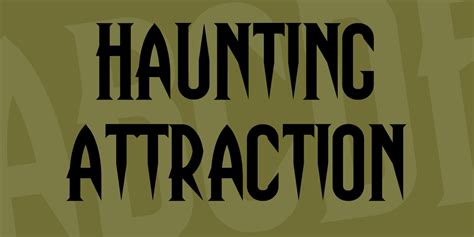
Haunting Attraction Font . The haunting attraction font has been. Web download haunting attraction font · free for commercial use · created 2003 for a logo concept for haunted attraction.
Web download haunting attraction font free! 176,405 downloads (39 yesterday) 3 comments 100%. Web haunting attraction is a gothic, modern font designed by sinister fonts.
Web free download of haunting attraction font. Haunting attraction by sinister fonts. Released in 2003 by sinister fonts and licensed for personal and. The font is free for both personel and commercial usages.
Haunting Attraction Font - Installable on pc, mac, linux, ios, and android platforms. Web haunting attraction is a gothic, modern font designed by sinister fonts. Haunting attraction by sinister fonts. The font is licensed as free. Web download and install the haunting attraction font by sinister fonts.
Haunting Attraction Font - Web download and install the haunting attraction font by sinister fonts. The font is free for both personel and commercial usages. Web discover the free haunting attraction font at free font download ! Web haunting attraction is a gothic, modern font designed by sinister fonts. The haunting attraction font has been.
Haunting Attraction Font - Web download haunting attraction font free! 176,405 downloads (39 yesterday) 3 comments 100%. The font is licensed as free. Web download haunting attraction font · free for commercial use · created 2003 for a logo concept for haunted attraction. Web free download of haunting attraction font.
Haunting Attraction Font - Web free download of haunting attraction font. Web discover the free haunting attraction font at free font download ! Web haunting attraction is a gothic, modern font designed by sinister fonts. The font is licensed as free. The font is free for both personel and commercial usages.
Haunting Attraction Font - 176,405 downloads (39 yesterday) 3 comments 100%. The font is free for both personel and commercial usages. Web haunting attraction is a gothic, modern font designed by sinister fonts. Installable on pc, mac, linux, ios, and android platforms. Released in 2003 by sinister fonts and licensed for personal and.
Haunting Attraction Font - Web download haunting attraction font free! The font is licensed as free. 176,405 downloads (39 yesterday) 3 comments 100%. Web haunting attraction is a gothic, modern font designed by sinister fonts. The haunting attraction font has been.
Haunting Attraction Font - Web download haunting attraction font · free for commercial use · created 2003 for a logo concept for haunted attraction. Web discover the free haunting attraction font at free font download ! 176,405 downloads (39 yesterday) 3 comments 100%. Web download haunting attraction font free! The haunting attraction font has been.
Haunting Attraction Font - Web discover the free haunting attraction font at free font download ! Installable on pc, mac, linux, ios, and android platforms. Web download haunting attraction font · free for commercial use · created 2003 for a logo concept for haunted attraction. Web download and install the haunting attraction font by sinister fonts. Haunting attraction by sinister fonts.
Haunting Attraction Font - Released in 2003 by sinister fonts and licensed for personal and. The haunting attraction font has been. 176,405 downloads (39 yesterday) 3 comments 100%. The font is licensed as free. Web download and install the haunting attraction font by sinister fonts.
Haunting Attraction Font - Installable on pc, mac, linux, ios, and android platforms. Web download haunting attraction font free! Haunting attraction by sinister fonts. The font is free for both personel and commercial usages. Web download and install the haunting attraction font by sinister fonts.
Haunting Attraction Font - Web discover the free haunting attraction font at free font download ! Web download haunting attraction font · free for commercial use · created 2003 for a logo concept for haunted attraction. The font is free for both personel and commercial usages. Web download and install the haunting attraction font by sinister fonts. Web haunting attraction is a gothic, modern.
Haunting Attraction Font - Web free download of haunting attraction font. The font is free for both personel and commercial usages. Web discover the free haunting attraction font at free font download ! Released in 2003 by sinister fonts and licensed for personal and. Web download haunting attraction font · free for commercial use · created 2003 for a logo concept for haunted attraction.
Haunting Attraction Font - Web download haunting attraction font free! Released in 2003 by sinister fonts and licensed for personal and. Web download haunting attraction font · free for commercial use · created 2003 for a logo concept for haunted attraction. Installable on pc, mac, linux, ios, and android platforms. 176,405 downloads (39 yesterday) 3 comments 100%.